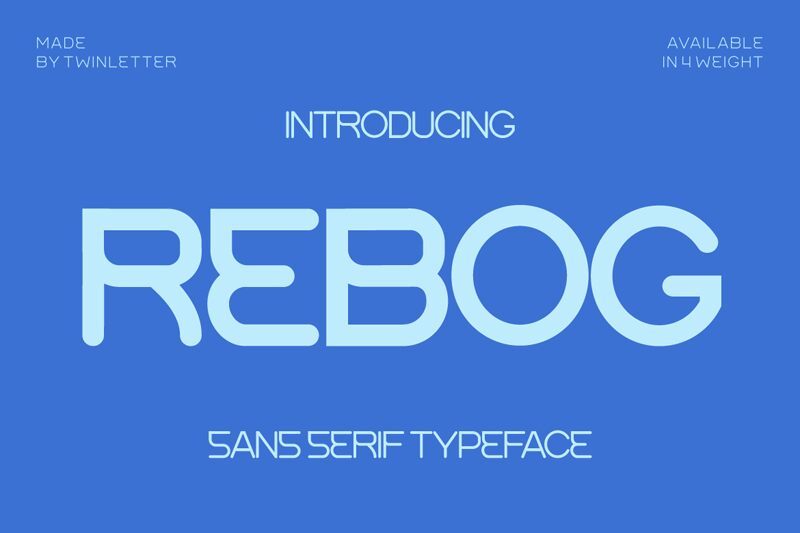
REBOG Bold, designed by twinletter, is a stunning display font that blends futuristic elements with a classic sans serif feel. Its semi-light weight and expanded width make it perfect for bold headlines and attention-grabbing designs. This unique typeface is ideal for projects that demand a modern edge, such as tech startup logos, product packaging or cutting-edge fashion magazines. With its clean lines and sleek appearance, REBOG Bold is sure to impress and make a statement on any project it's used on. Get ready to take your designs to the next level with this standout font!